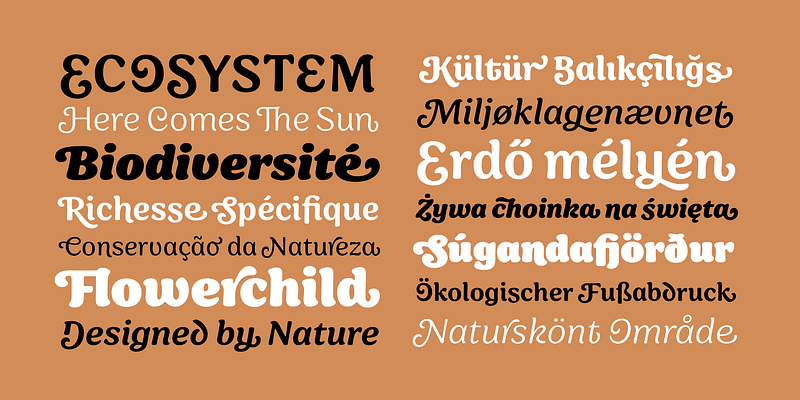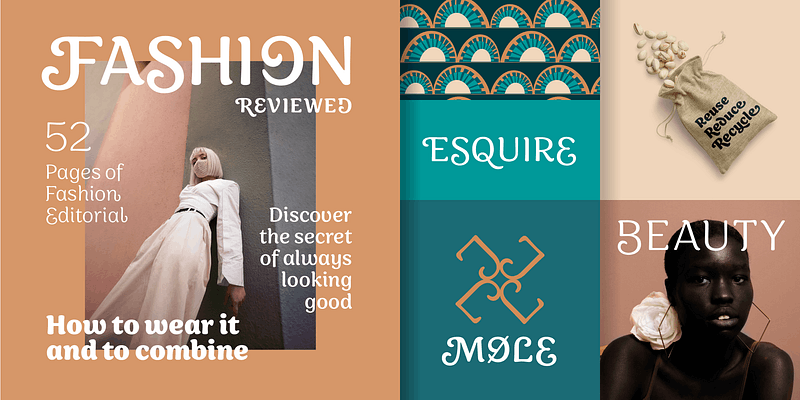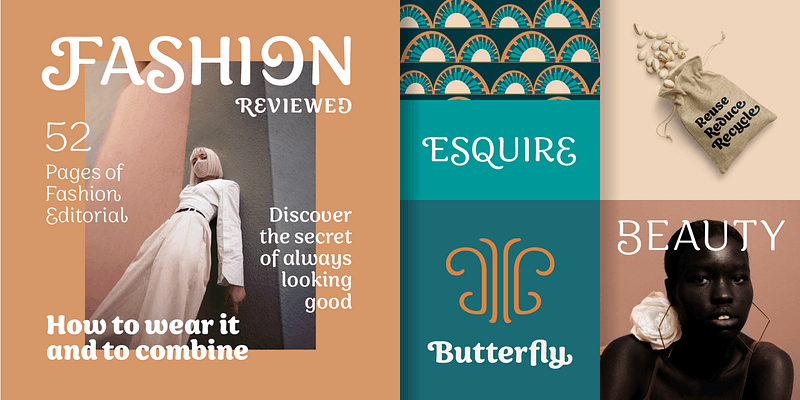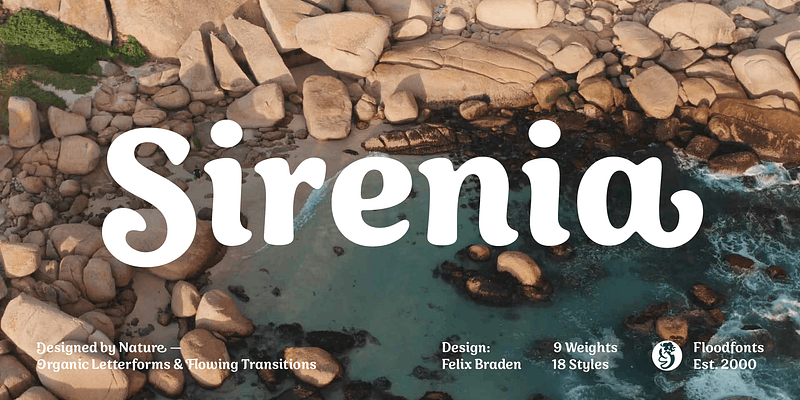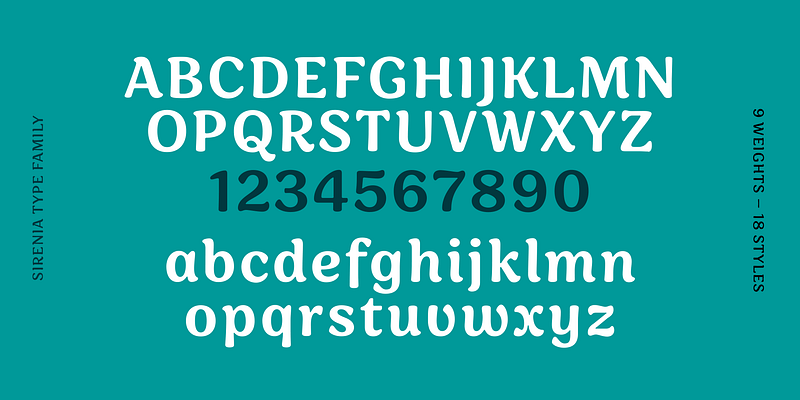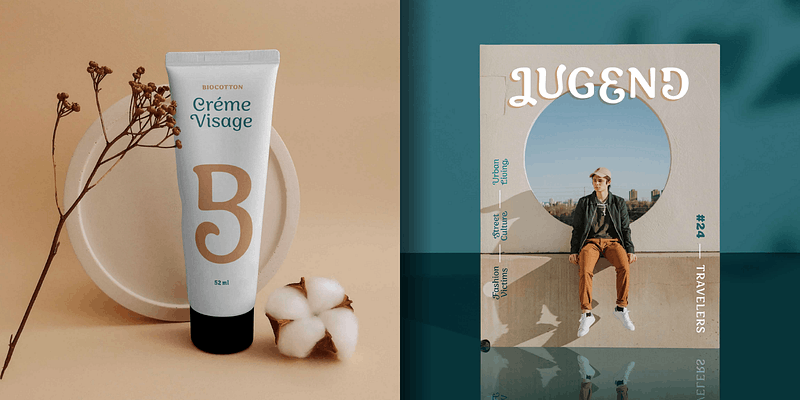
Sirenia is a friendly display face with rounded corners and flowing transitions. The letters have a very organic look and feel, as if naturally grown. There are clear calligraphic influences in the typeface, since the letterforms are based on a written construction, all drawn with a single stroke. This authentic natural look is ideally suited for lifestyle products, the food & beverage sector and for sustainable design.
Sirenia’s 1270 characters contain many decorative letters and swash variations for initial, medial and final letters. This gives the designer the possibility to work more as a lettering artist than a typographer and to create lively logotypes according to his own ideas, matching the respective letter combination.